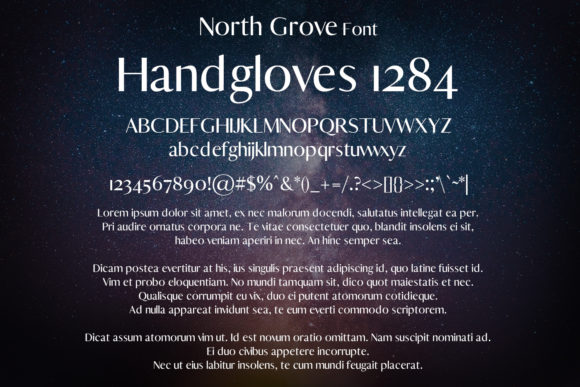
Introduction to North Grove Font
North Grove is a stylish and delicate sans serif font.
It has a clean, thin and smooth vibe and it will be a hit for any design that you want to add it to .